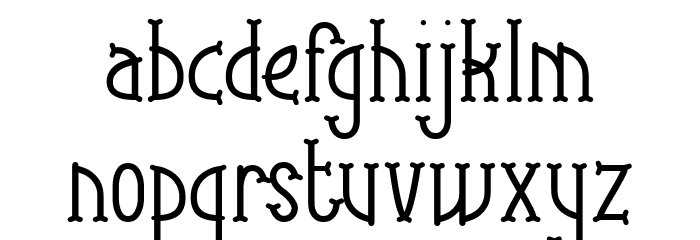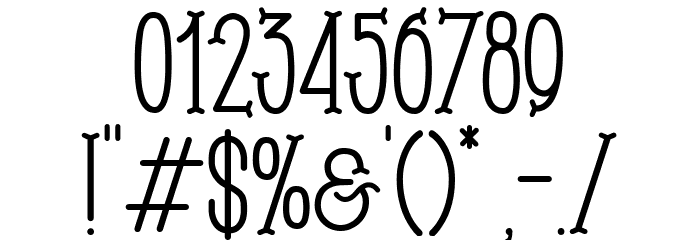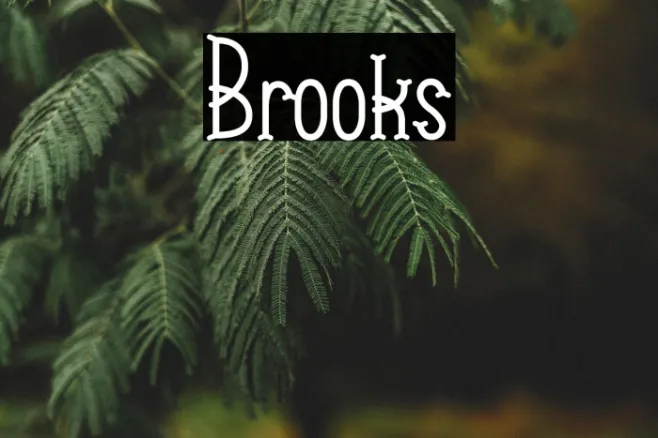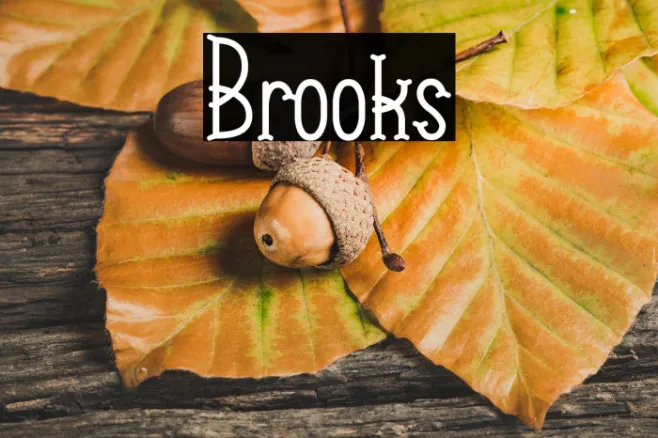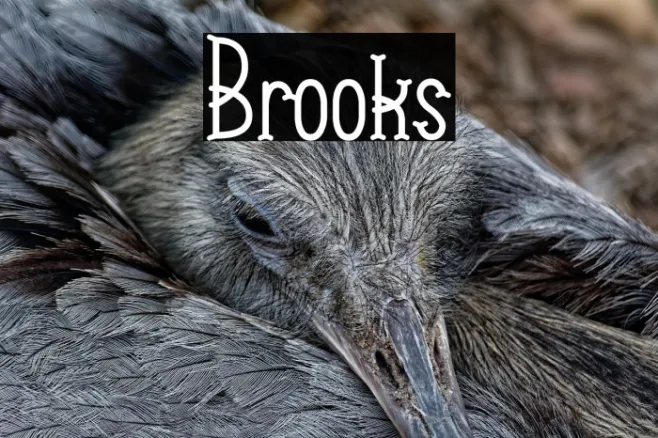
Brooks Font
This font features a unique and playful design with elongated serifs and a whimsical flair. The characters are tall and narrow, giving it a distinctive appearance that stands out. The uppercase letters have a quirky, almost hand-drawn quality, while the lowercase letters maintain a consistent style with slight variations in stroke width. The numerals and special characters follow the same playful theme, making this font ideal for creative projects. Its decorative nature is suitable for eye-catching headlines or artistic designs.
A whimsical, decorative font with elongated serifs and a playful style.
- Font: Brooks
- Proposed Projects: Ideal for creative projects such as posters, invitations, children's books, and branding that requires a playful and unique touch.